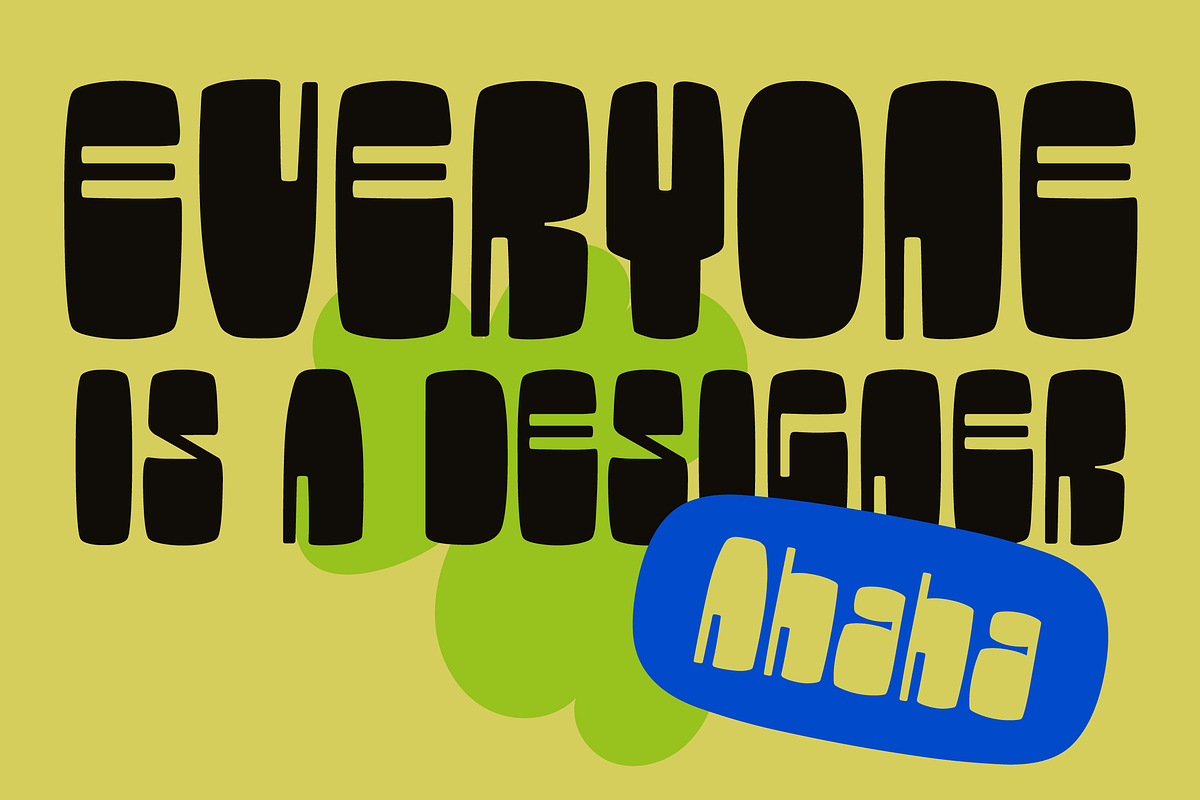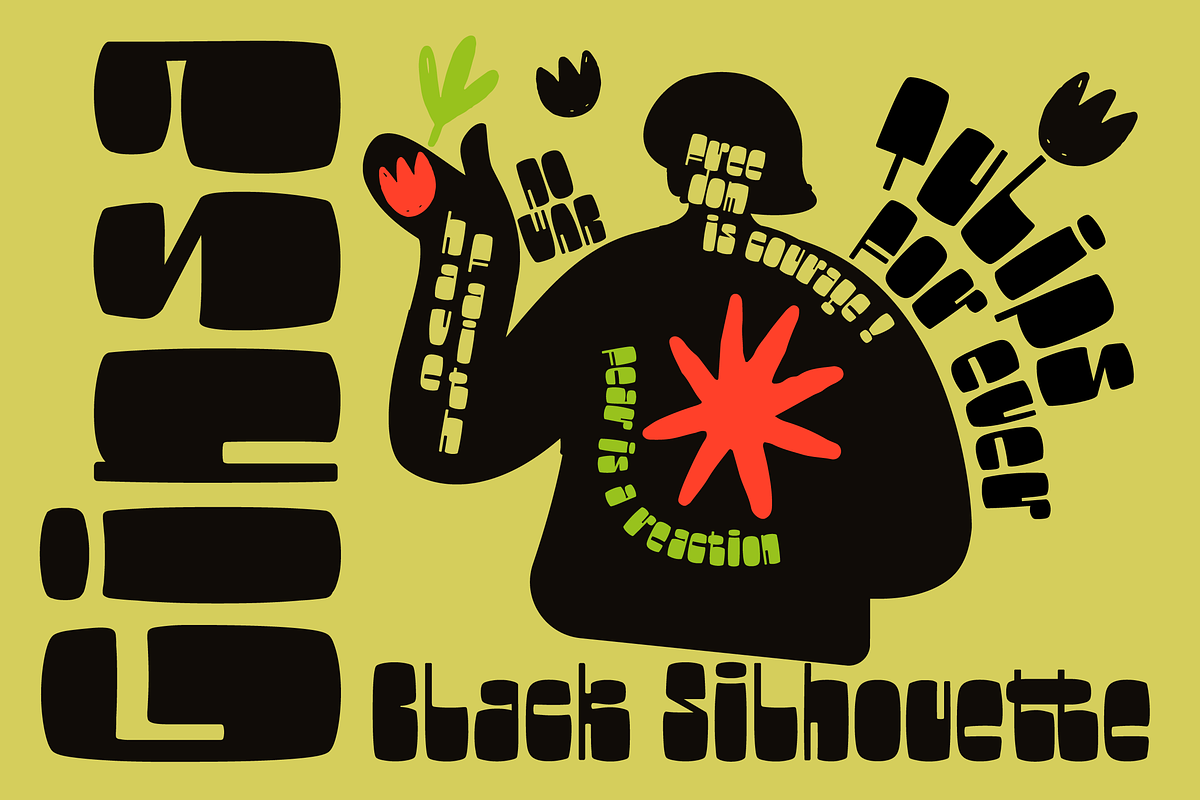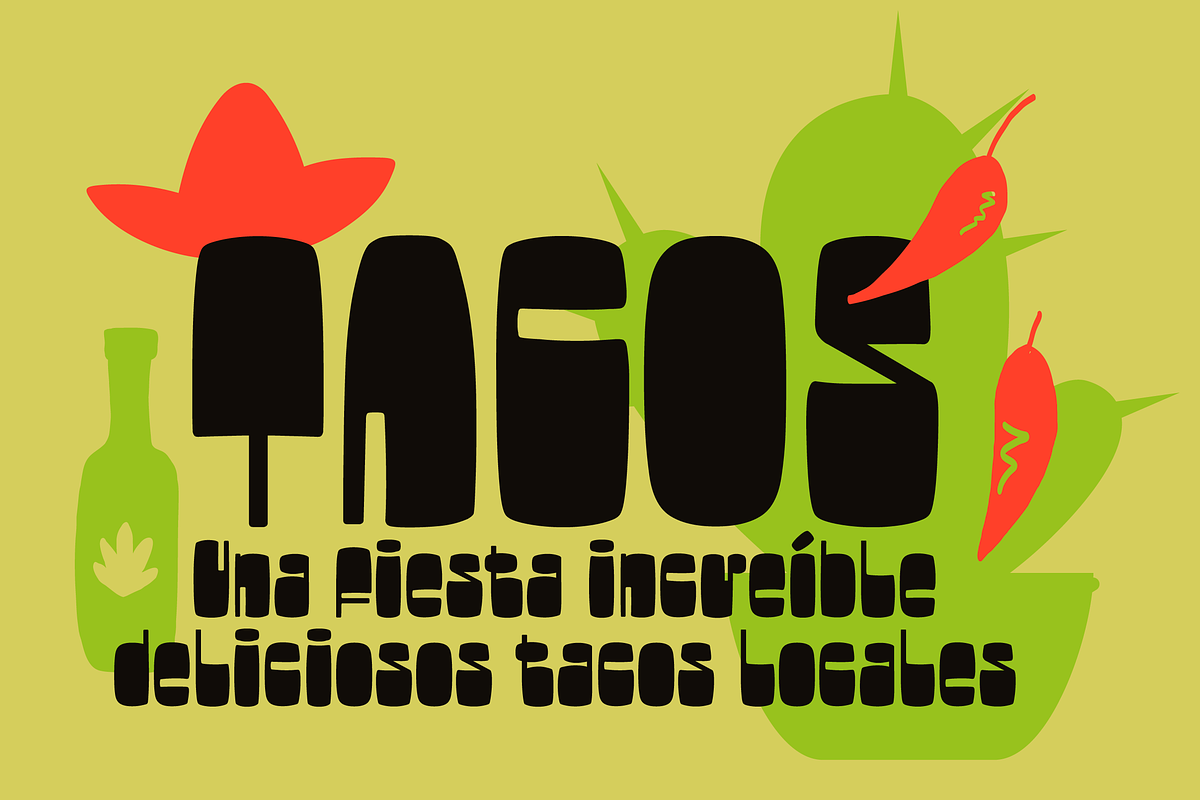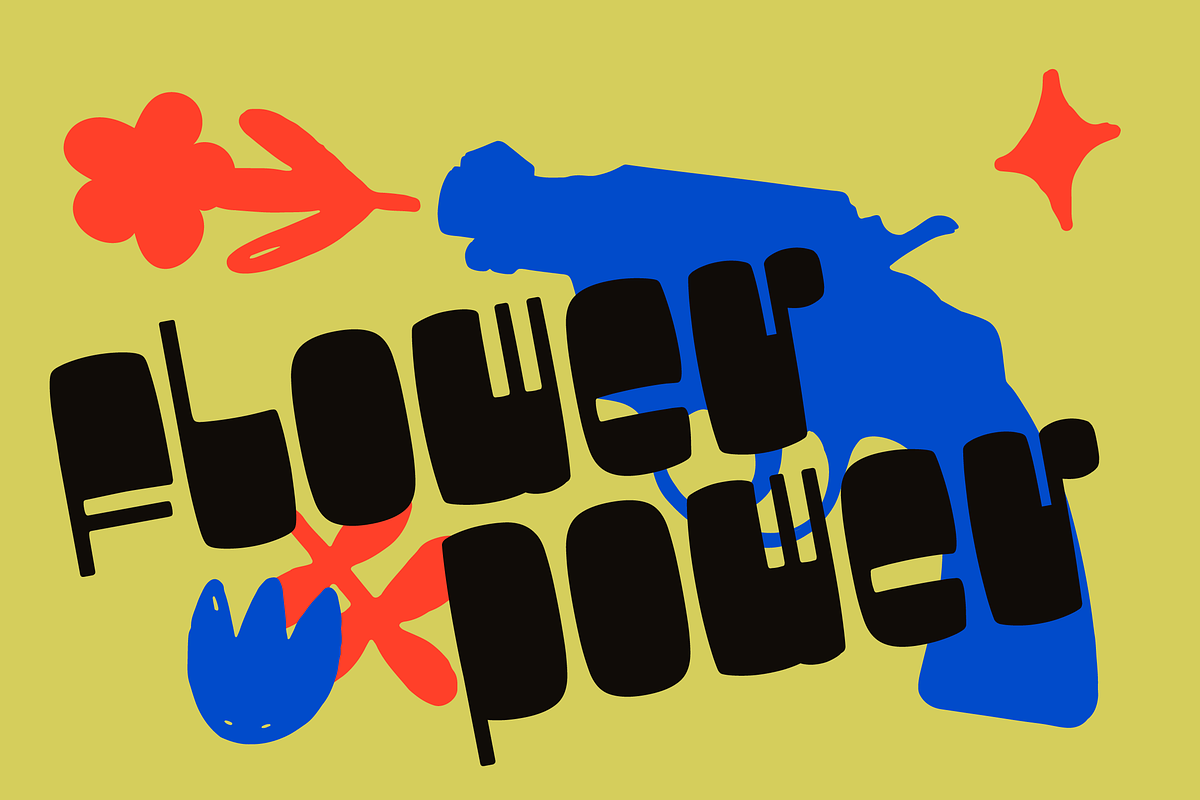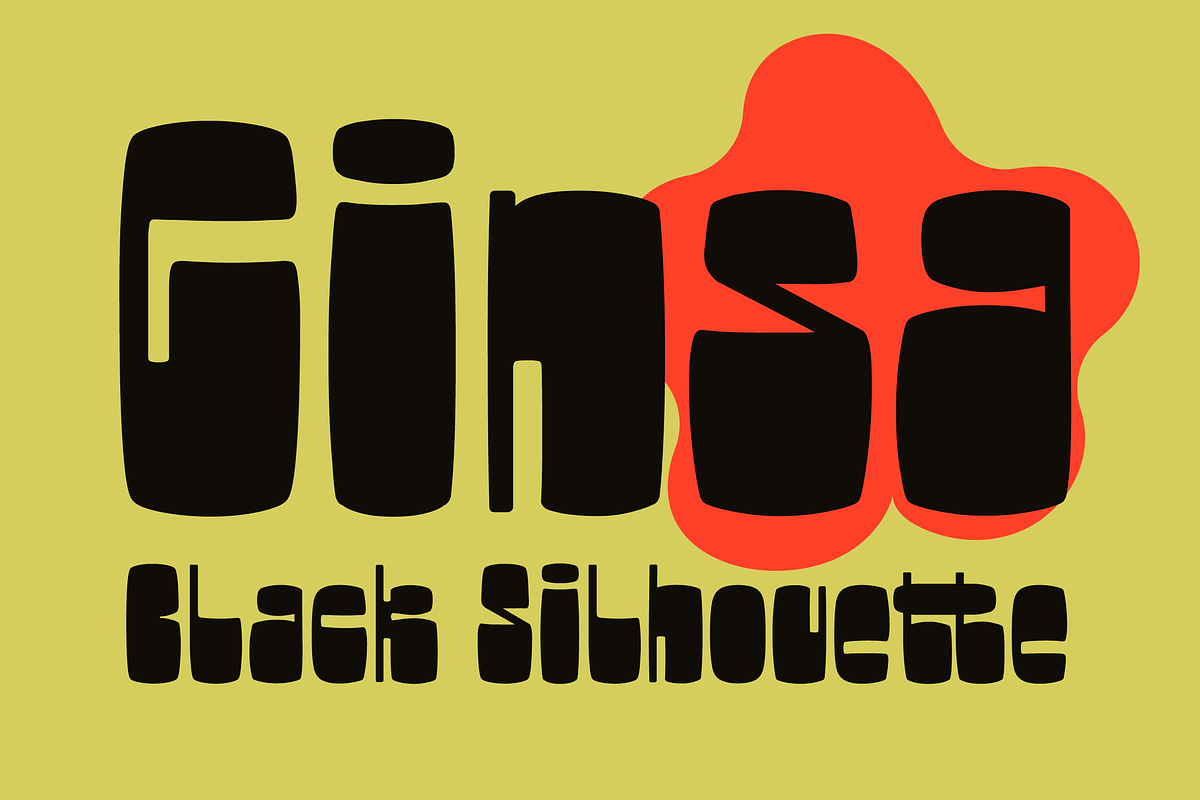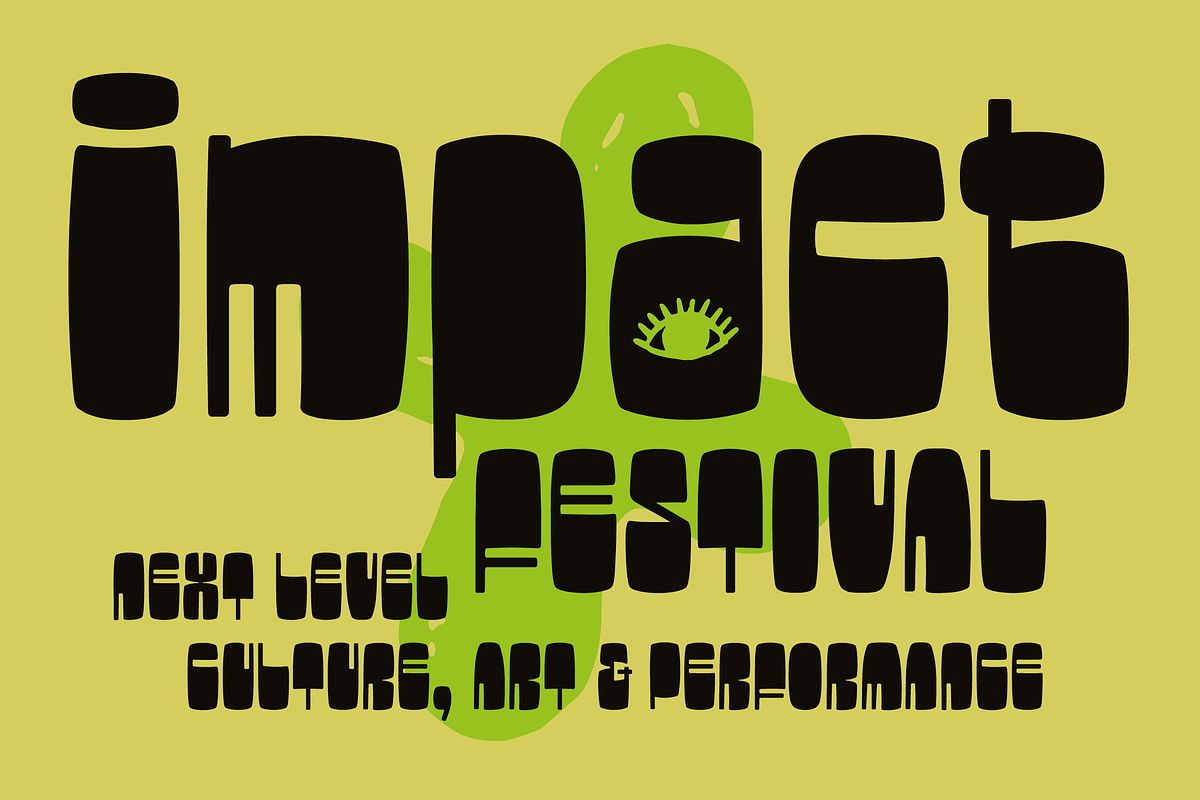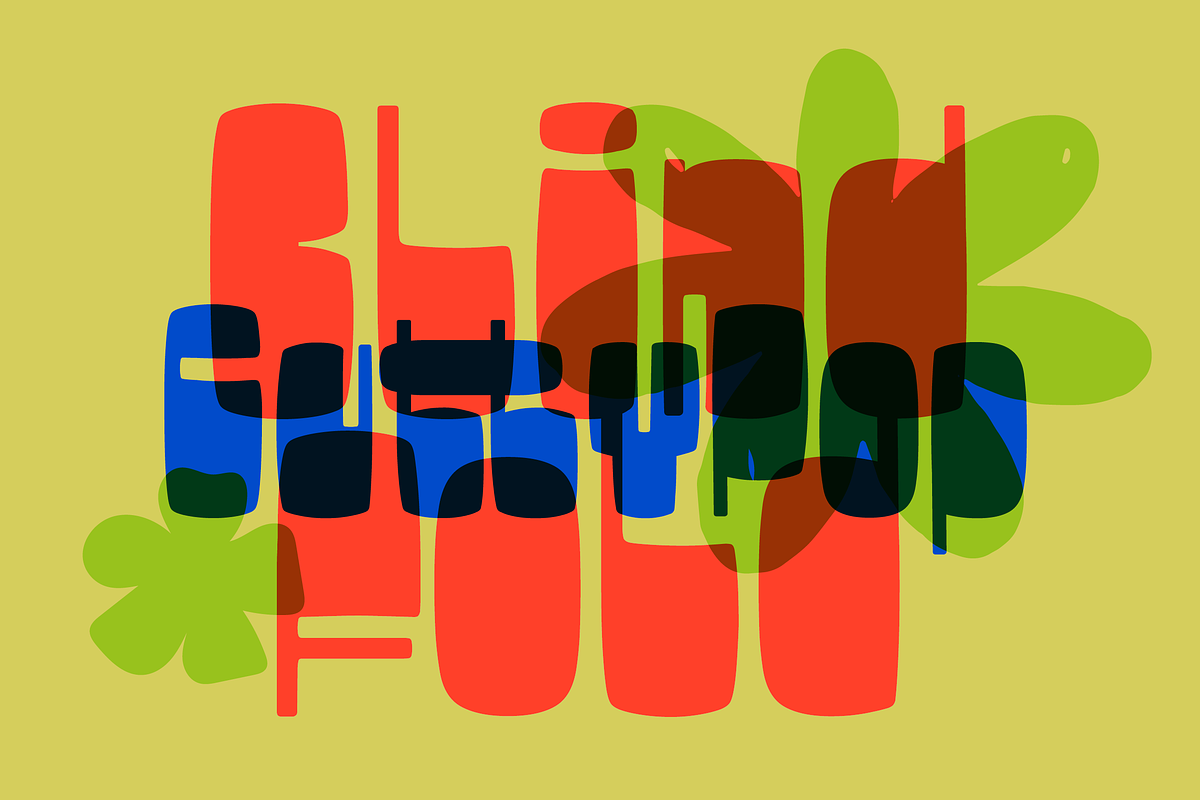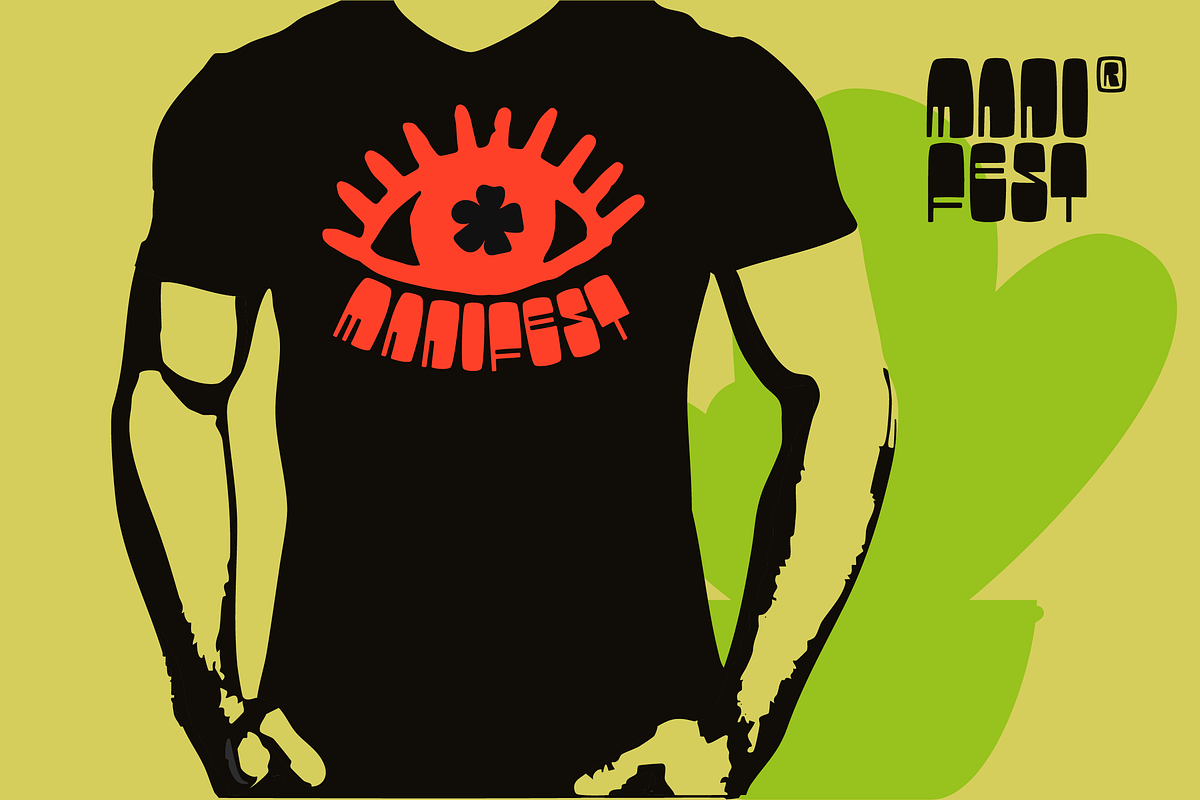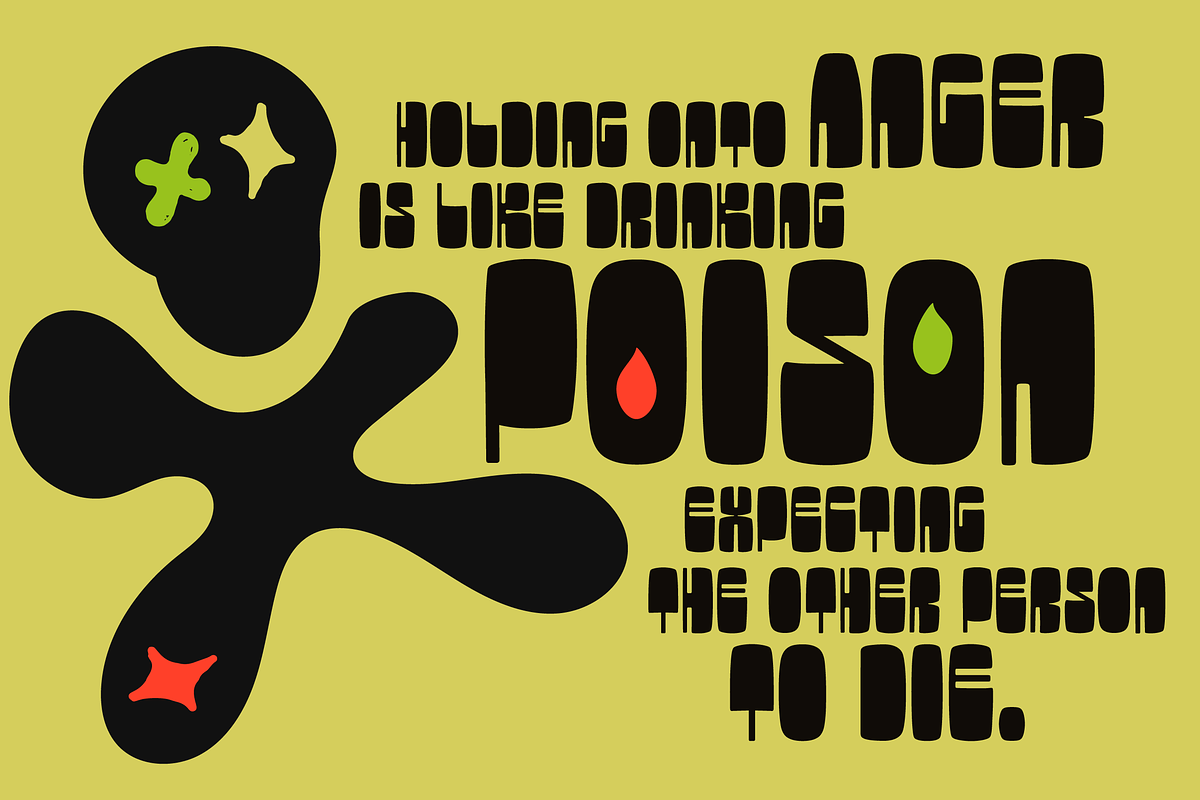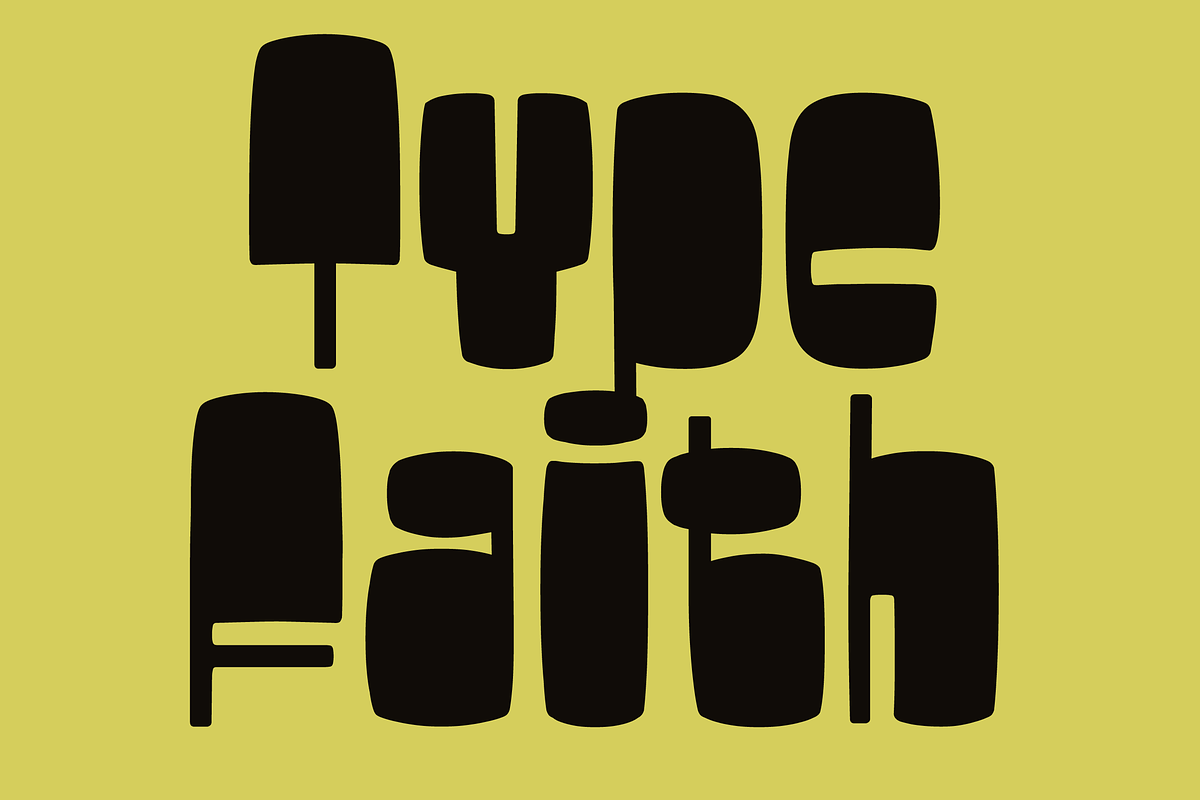
Ginsa Silhouette - analog aesthetic
Ginza Silhouette is a stylized cut-out font with the enduring charm of analog aesthetics. It pairs beautifully with Matisse-esque collage styles and cut-outs. It's not always easy to read, but that's precisely what gives it extra character. A perfect font for making your designs completely your own and giving them the desired analog look and feel. Ginsa celebrates the form created by human hands—imperfect, raw, with rough edges. The look of handmade lettering without hiding its imperfections—the inconsistency of hand-drawn designs. A tactile and nostalgic design approach that embraces the raw and authentic. The feel of eighties screen printing with hand-drawn imperfections, Ginsa appeals to both creatives and brands.